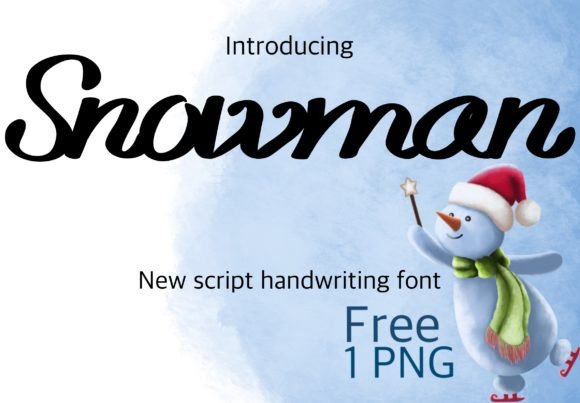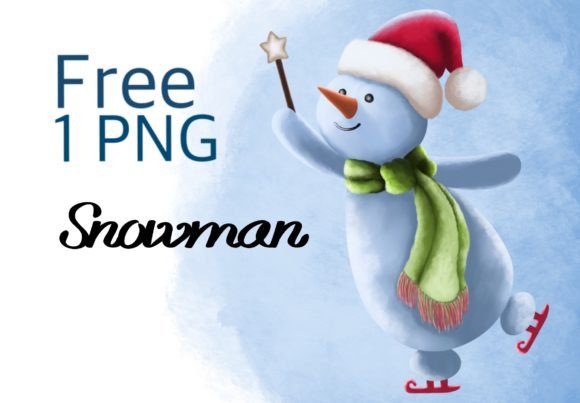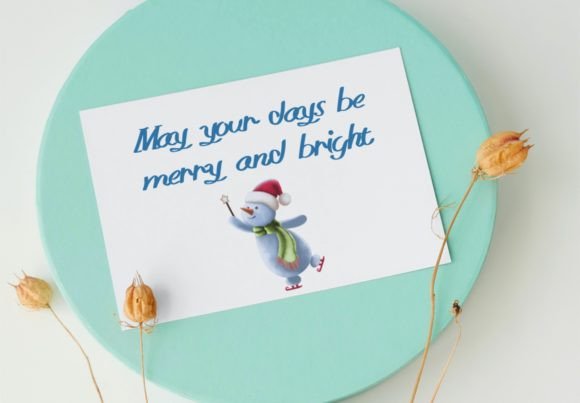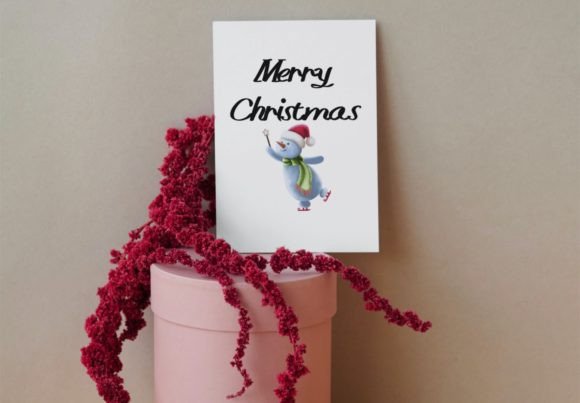
About Snowman Font
Snowman is a lovely and playful handwritten font designed to bring a touch of warmth and charm to your Christmas projects and beyond. This font is perfect for a wide range of applications, including wall displays, social media posts, logos, T-shirts, posters, product packaging, product designs, invitations, labels, stationery, and anything that could benefit from a friendly and whimsical touch.
The loveliness and playfulness of Snowman are immediately apparent, making it an excellent choice for projects that require a friendly and approachable aesthetic. The handwritten style adds a personal touch, creating a unique and engaging visual experience.
Snowman’s suitability for various applications is evident in its versatility. Whether you’re designing Christmas-themed social media posts or creating a friendly logo, this font seamlessly integrates, offering a playful and festive tone that resonates with a broad audience.
Incorporating Snowman into your projects is an invitation to infuse them with a friendly and whimsical touch, especially suitable for Christmas and holiday-themed designs. This handwritten font becomes a valuable tool, ready to add character and charm to your creations.
In summary, Snowman is more than just a font; it’s a lovely and playful design asset that brings a delightful touch to your projects, particularly those with a Christmas theme. With its friendly handwritten style, Snowman stands ready to be the perfect companion for a variety of creative endeavors, making your designs feel warm, festive, and full of character.